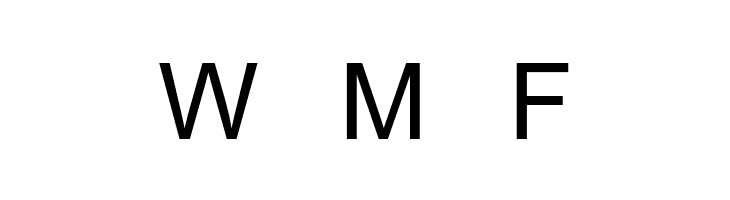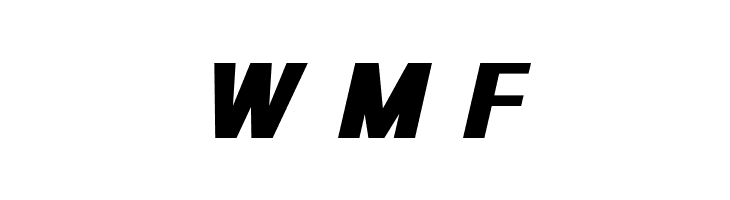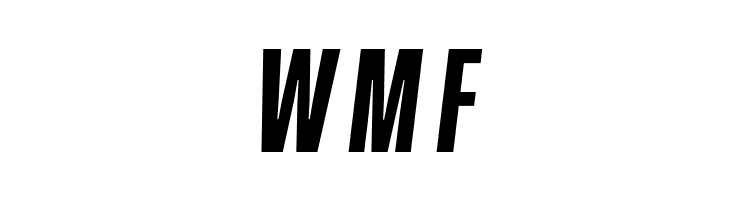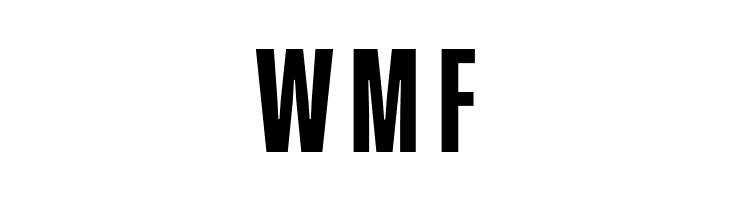
A modern, italic sans-serif font with clean lines and balanced proportions.
A modern, clean sans-serif font with geometric shapes and uniform strokes.
A bold, italic font with a dynamic and modern style.
Bold, condensed sans-serif font for impactful designs.
Bold italic sans-serif font with a dynamic style.
Bold, condensed sans-serif font with sharp lines.
Bold, italic sans-serif with sharp, modern design.
Bold italic sans-serif font with a modern style.
Bold, italic sans-serif with a soft look.
Bold italic sans-serif font with a modern look.